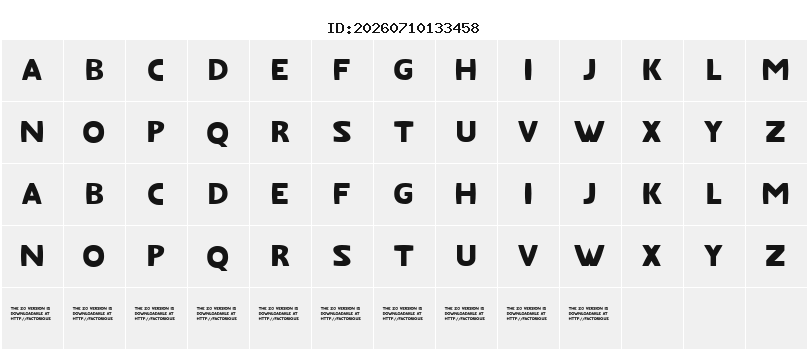
• Font Name: Fatfont
• Font Style: Normale
• Full Font Name: Fatfont
• Designer: ruggero motta
• Manufacturer: Factorio.us Collective
About Fatfont.ttf
Fatfont.ttf is a modern, elegant sans-serif font designed for ultimate readability and visual harmony. Perfect for branding, headlines, web design, and print materials.